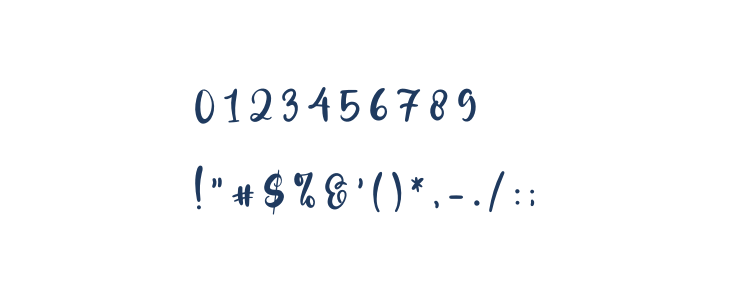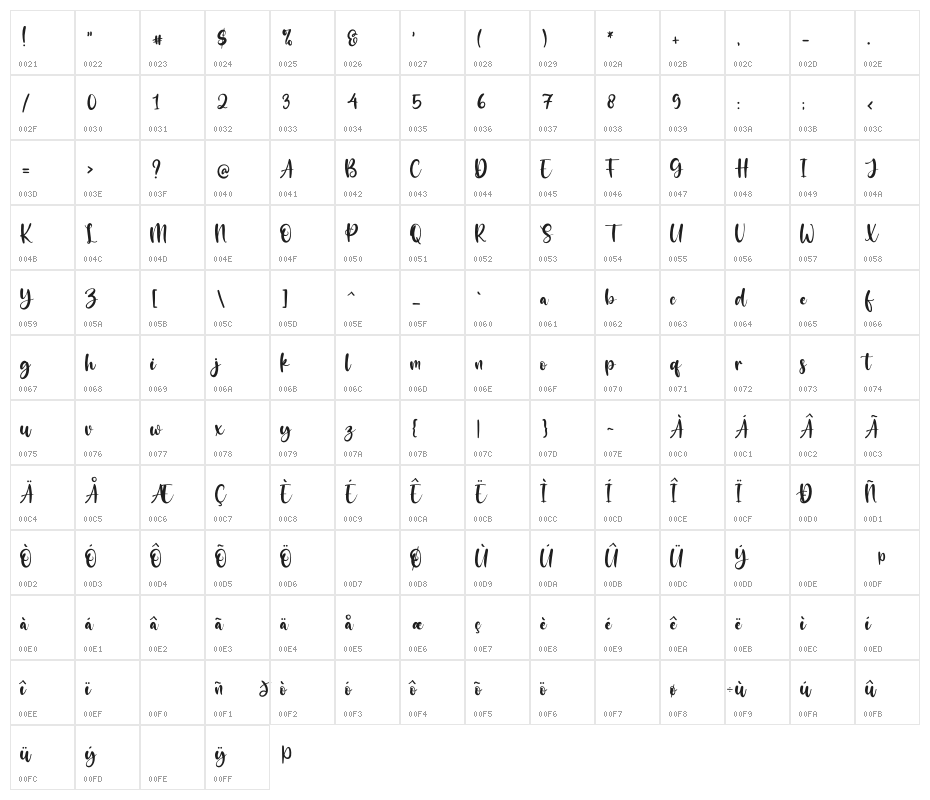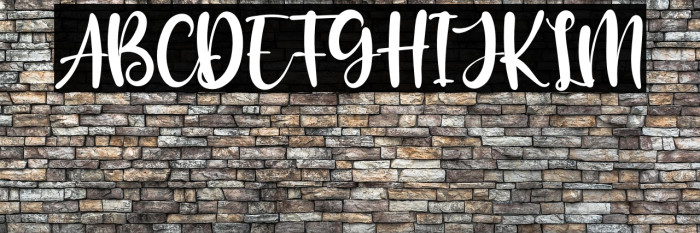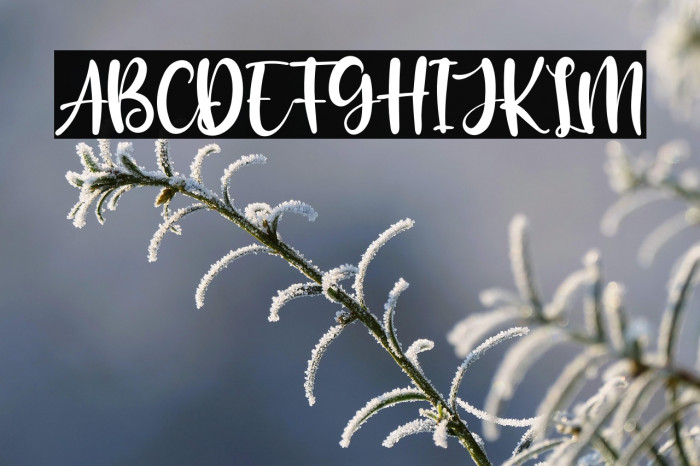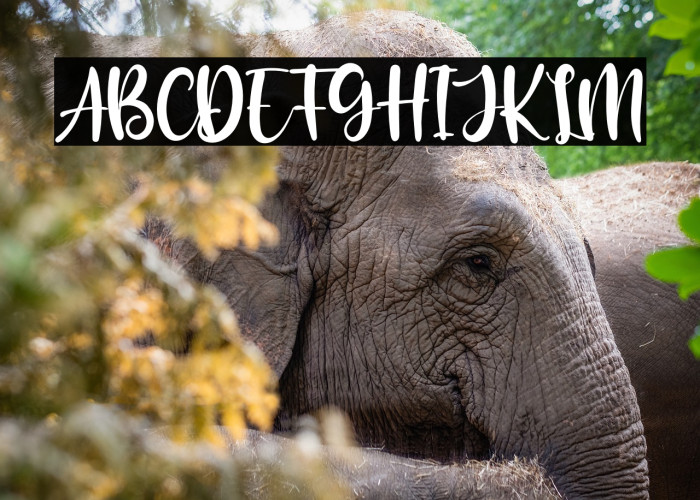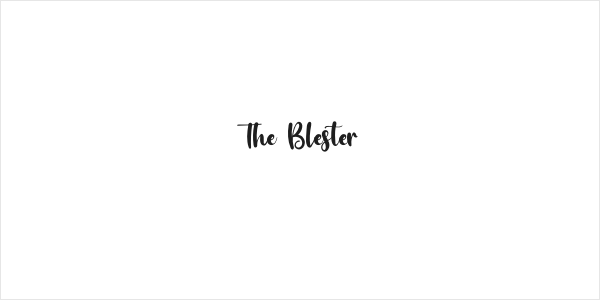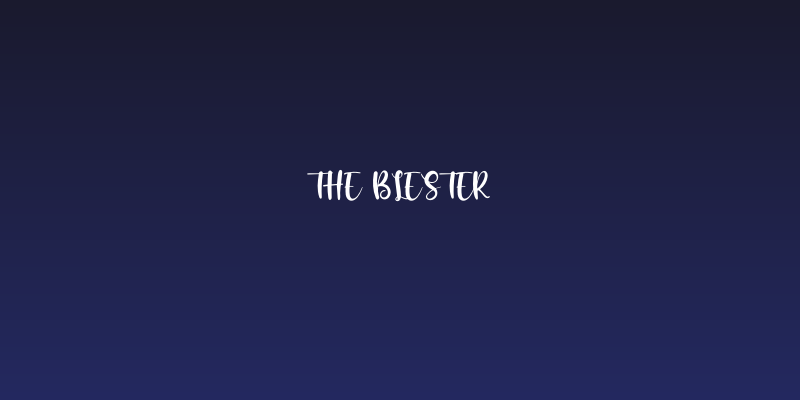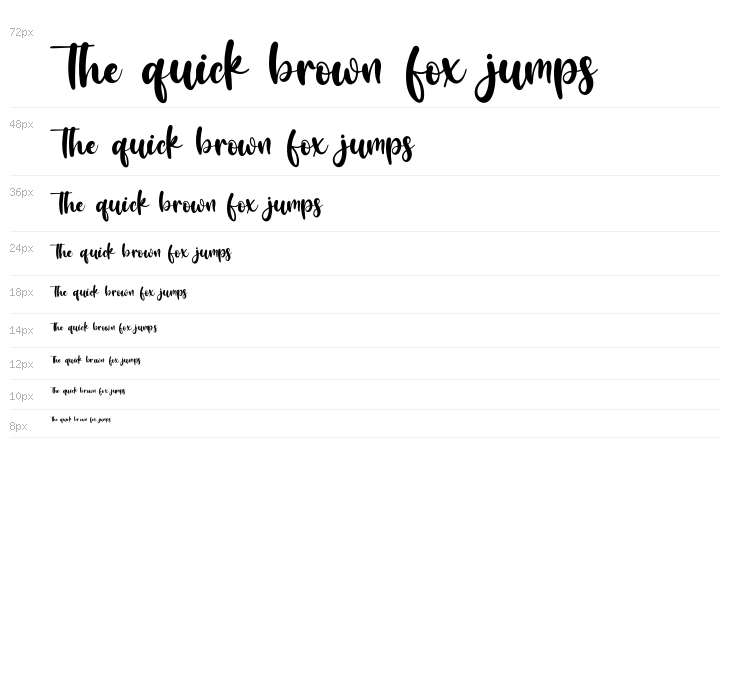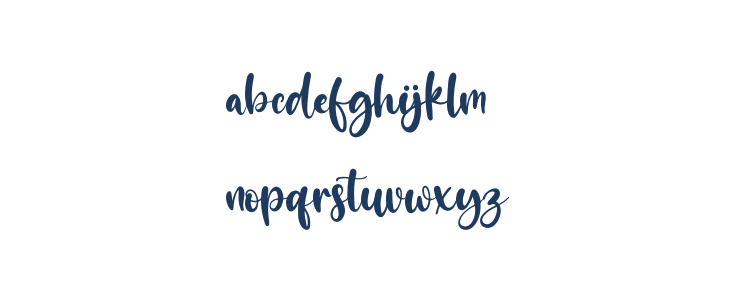
The Blester Font
The Blester Description
This font features a playful and energetic script style, characterized by its flowing, cursive letterforms and bold strokes. The uppercase letters are particularly dynamic, with a sense of movement and flair, while the lowercase letters maintain a consistent rhythm and balance. The numerals are rounded and harmonious, complementing the overall aesthetic. Special characters are integrated seamlessly, adding versatility to the font. The design is both modern and expressive, making it suitable for a variety of creative applications.